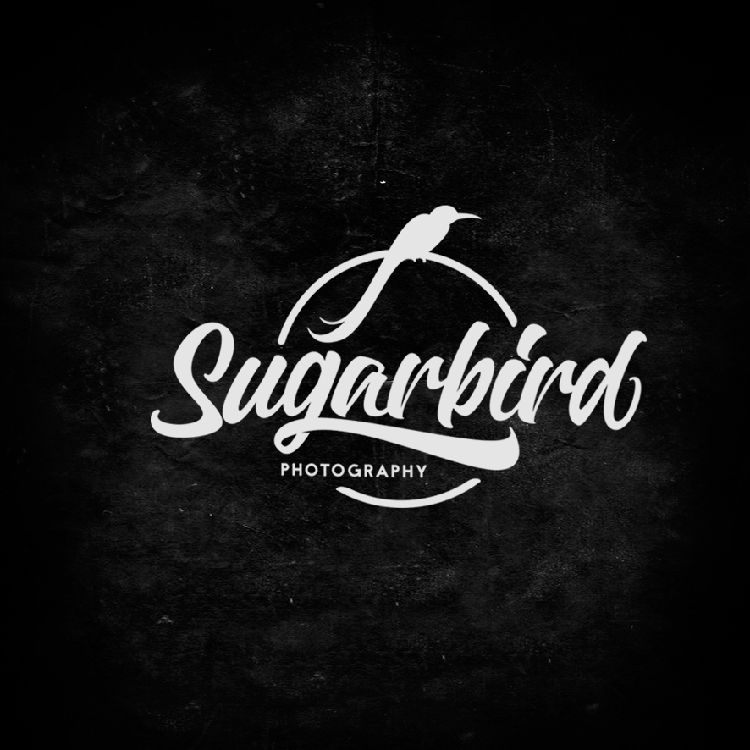
Calligraphy Fonts For Logo Design
Calligraphy Fonts For Logo Design. Use this italicized calligraphic font for logos, headlines, and more. Click to find the best 826 free fonts in the logo calligraphy style.
Click to find the best 826 free fonts in the logo calligraphy style. Every font is free to download! Featherly is a hand drawn, elegant, modern calligraphic font perfect for wedding design projects, invitations, greeting cards, signatures, watermarks, logos, handwriting and more.
It Usually Involves A Nibbed Pen ️ Or Brush 🖌️.
Use this font for logos, social media, wedding decor, invitations, home decor, websites, blogs, instagram, business cards, branding, and more! It’s a perfect choice for logos and branding projects as well as letterheads, invitations, social media posts, and more. Calligraphic fonts are widely used by graphic designers and desktop publishers.
The height of calligraphy was reached in the middle age, where monks developed the narrow writing style called gothic, allowing more words to fit on a single line, as paper was expensive at the time. Click to find the best 826 free fonts in the logo calligraphy style. Get inspired and start planning the perfect calligraphy logo design today.
Calligraphy Is One Of The Most Accessible And Visually Appealing Typography Styles When It Comes To Choosing A Font For A Design Or Logo.
Qillyanst is a beautiful and elegant set of signature calligraphy font with incredible results. Free to download for commercial use. Endestry modern calligraphy font (free) the endestry font was designed by creatype studio and features a great flow.
Sophia Ronald // Lovely Script Font
The font looks great when you write words in lowercase. Billowing script (envato elements) the billowing script is a modern calligraphy font that was inspired by nature. Barley is a handwritten script font.
It Has An Authentic Modern Calligraphy Look Making It Perfect For Branding And Digital Designs.
Featherly is a hand drawn, elegant, modern calligraphic font perfect for wedding design projects, invitations, greeting cards, signatures, watermarks, logos, handwriting and more. Qillyanst is ideal for branding projects, logo designs, wedding designs, social media posts, advertising, product packaging, product designs, labeling, photography, watermark, invitation, stationery and any projects requiring taste for handwriting. Burgues script created by alejandro paul is a typical font family of calligraphy style.